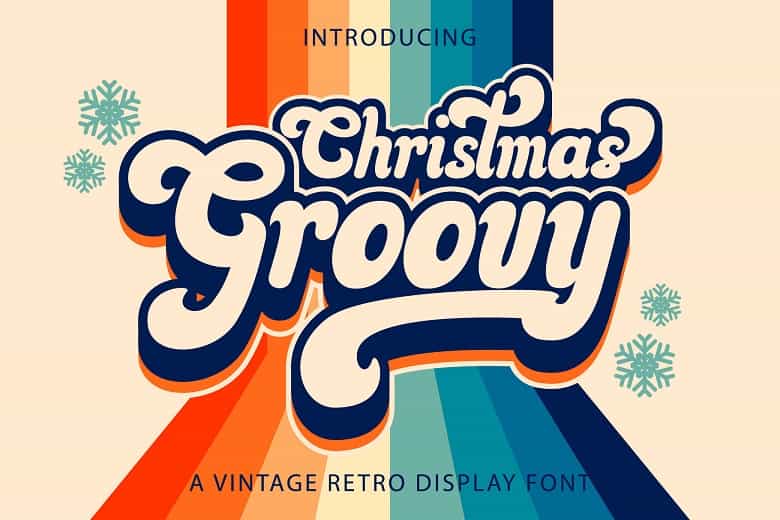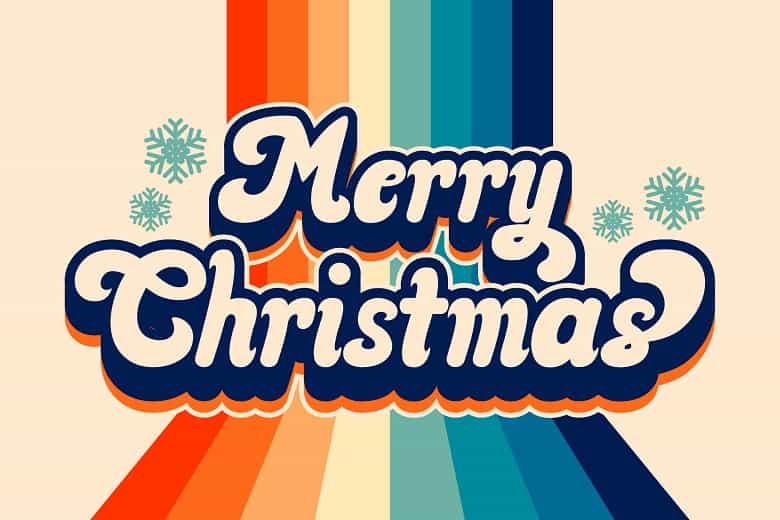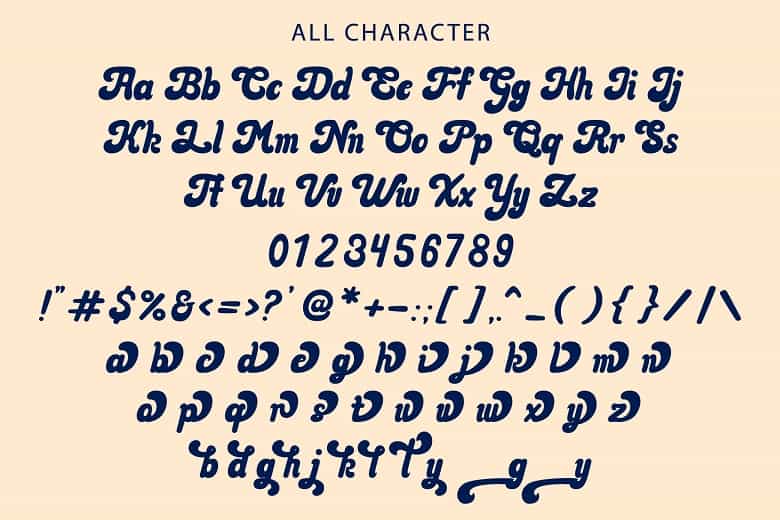
Christmas Groovy is a retro display font which is written in the vintage style. It is better to use it in the projects which require something more old school in the design aspect! Some of the areas that one can use the illustrations include logos, branding, invitations, stationery, wedding designs, social media posts among others.